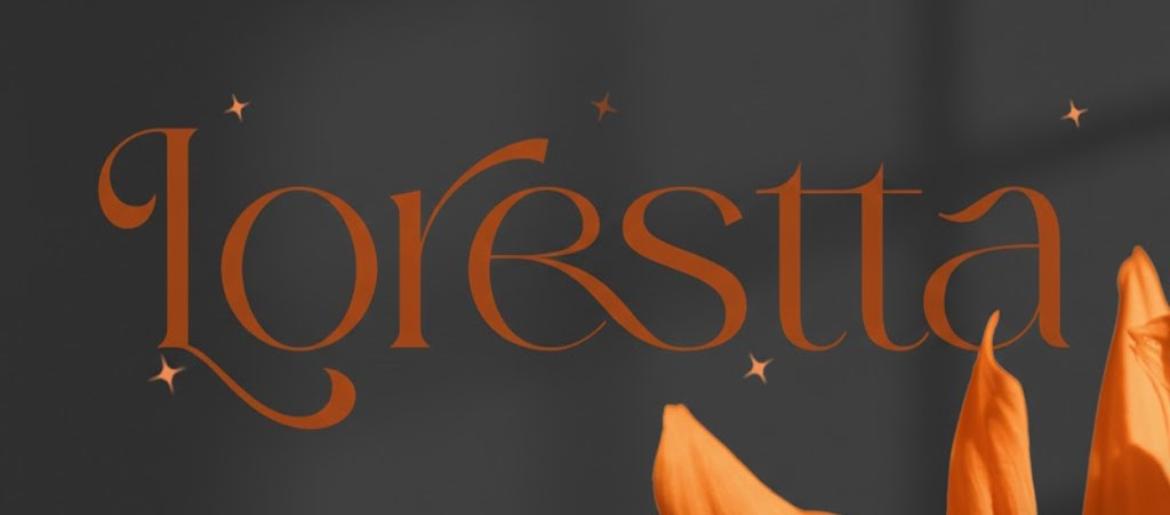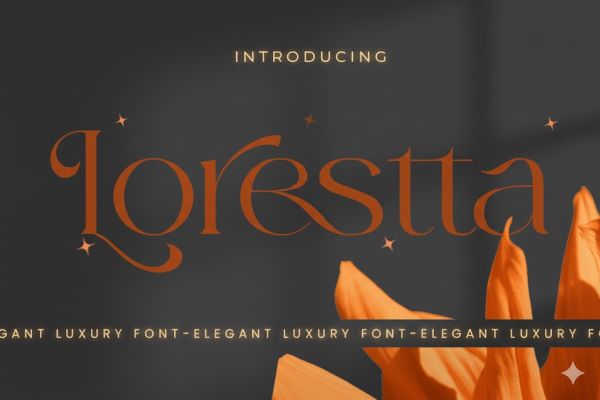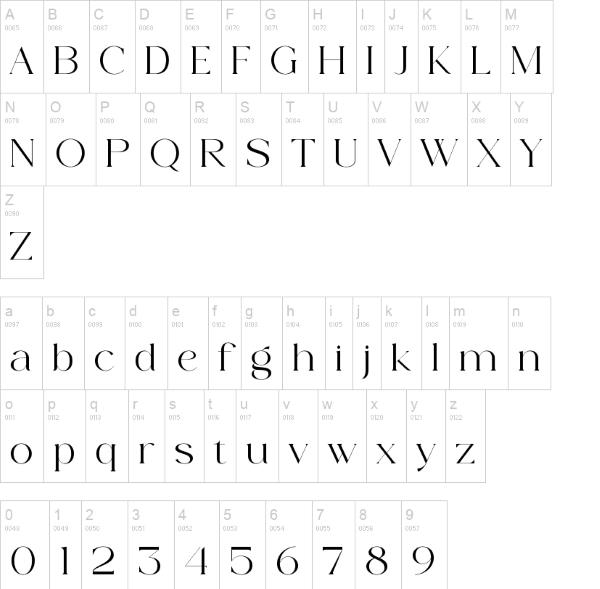
Lorestta Font
Lorestta Font is an elegant serif typeface that blends timeless beauty with soft femininity. Its refined curves and graceful letterforms create a warm, luxurious impression. Designed for fashion branding, wedding stationery, editorials, and premium packaging, Lorestta includes stylish ligatures and alternate characters, offering creative flexibility while enhancing logos, headlines, and sophisticated design projects.
Lorestta font